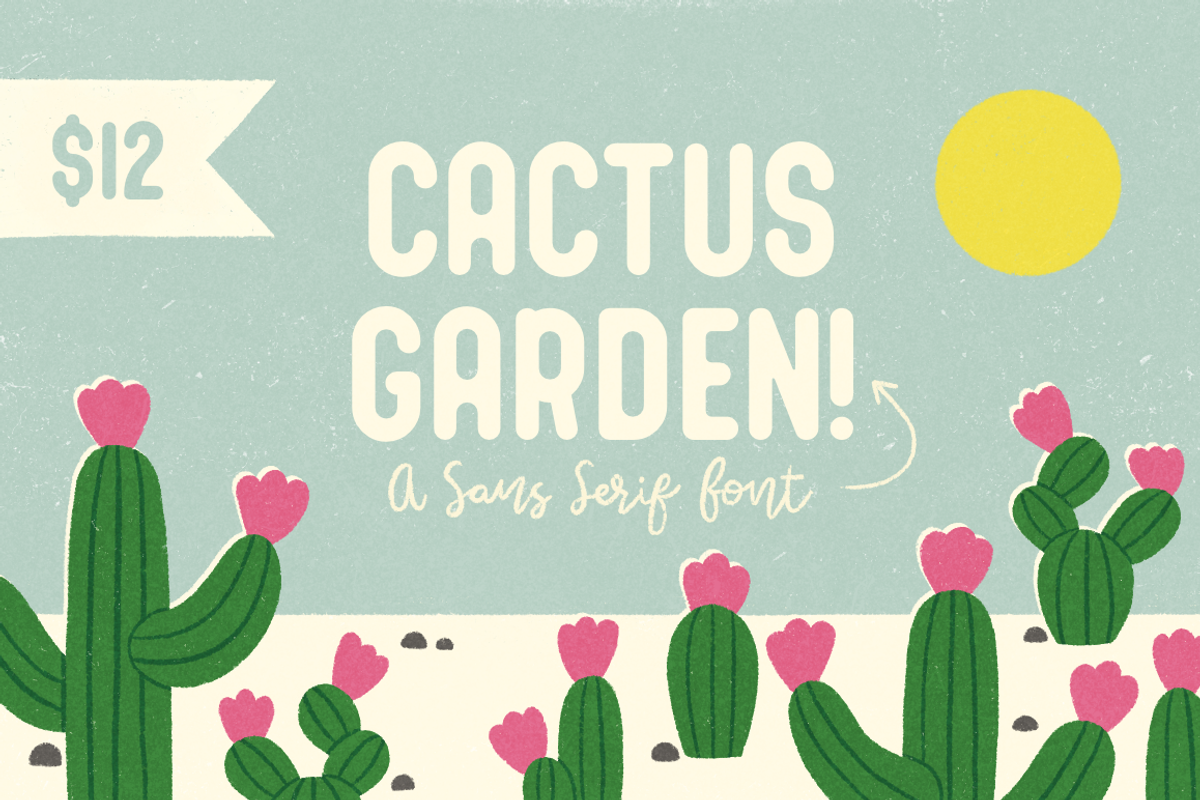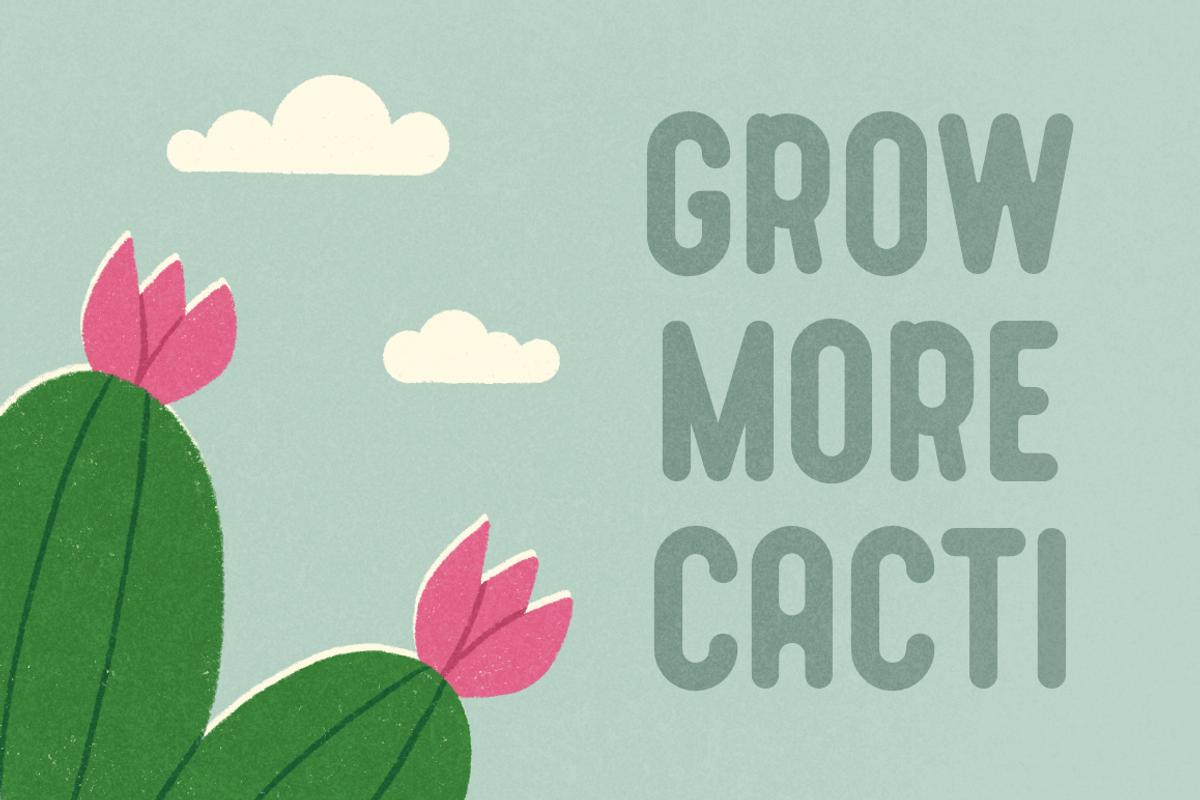
Monoweight Sans Serif Font
Introducing my new Cactus Garden Sans Serif font!
This chunky font is perfect for creating bold titles, illustrations, physical products, etc. Included in this uppercase font are both OTF and TTF font files. The font included basic characters which can be viewed in the final picture shown.